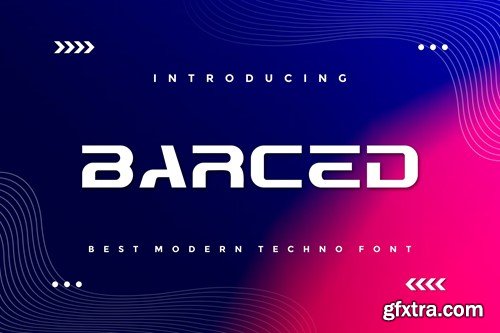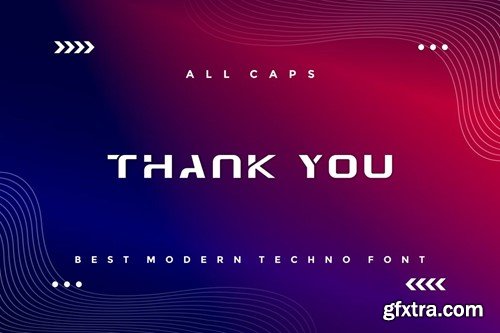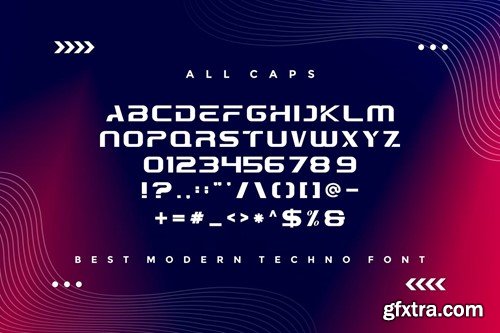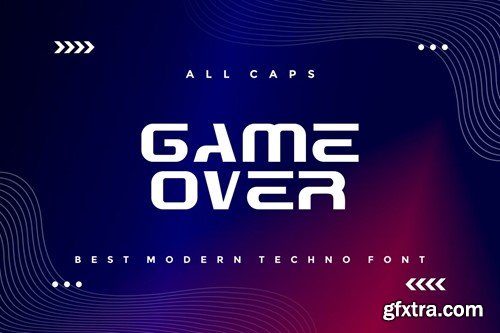
Barced - 现代Techno字体U52Y27L
Barced - Modern Techno Font
Introducing our new product Barced - Modern Techno Font Barced is a bold, modern display font with playful flair, ideal for attention-grabbing headlines, logos, and diverse design projects. Versatile and readable in both digital and print, Barced adds a dynamic touch to your message. availlable